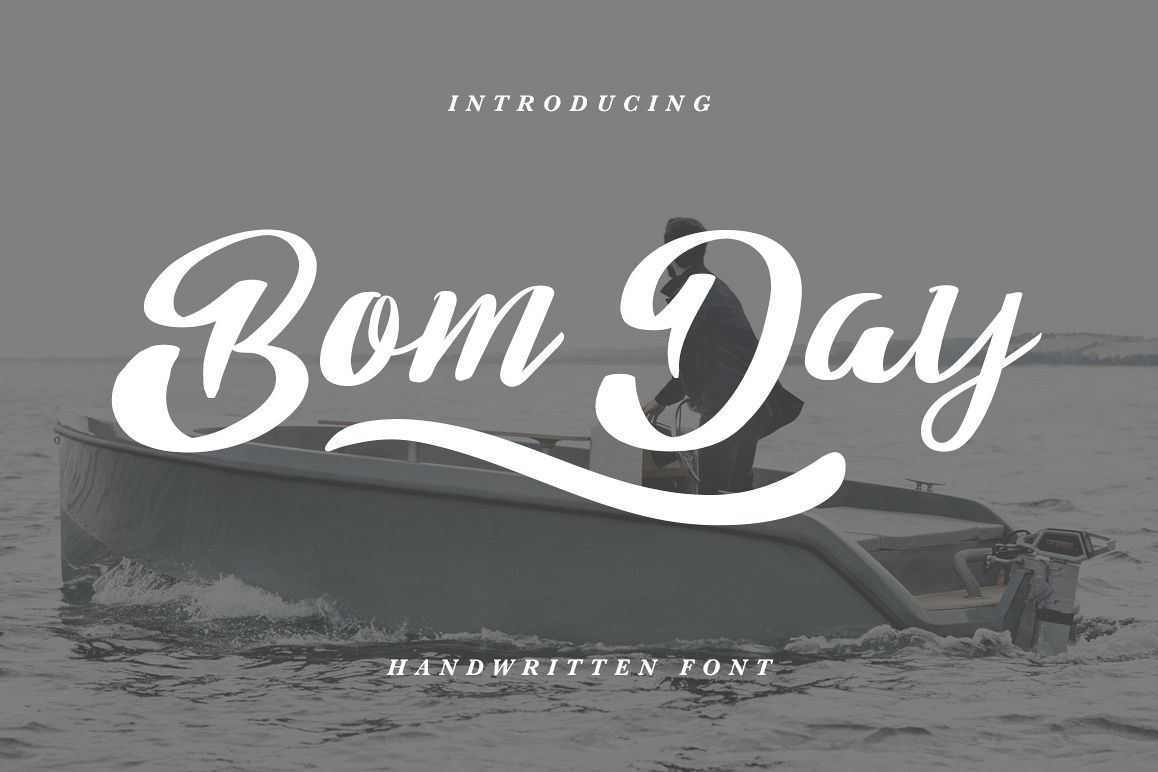
Give your designs an authentic handcrafted feel. "Bom Day" is perfectly suited to stationery, logo, typography quotes, magazine or book cover, website header, clothing, branding, packaging design and more. Included Stylistic Alternates.Use the alternates in